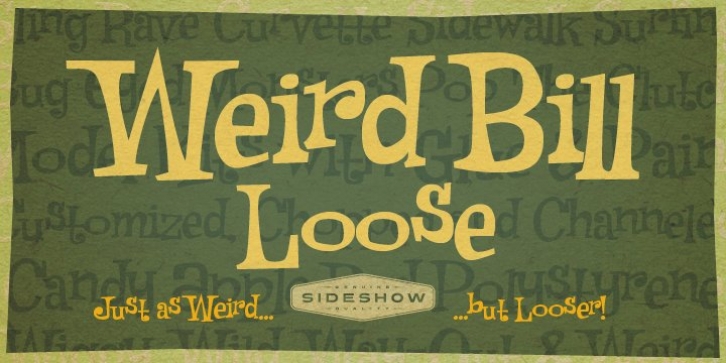
Weird Bill Loose downloadDesigner: David (Squid) Cohen,
Publisher: Sideshow
So you wanna go to Weirdsville, baby?
Well let Weird Bill Loose be your pilot! He ain't square, he ain't uptight, he’s just plain loose!
Another dysfunctional Weird Bill font family system member.